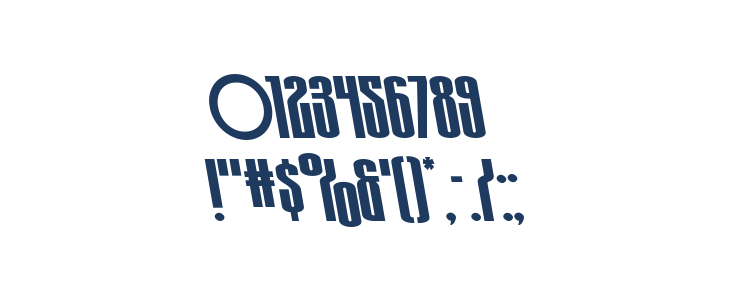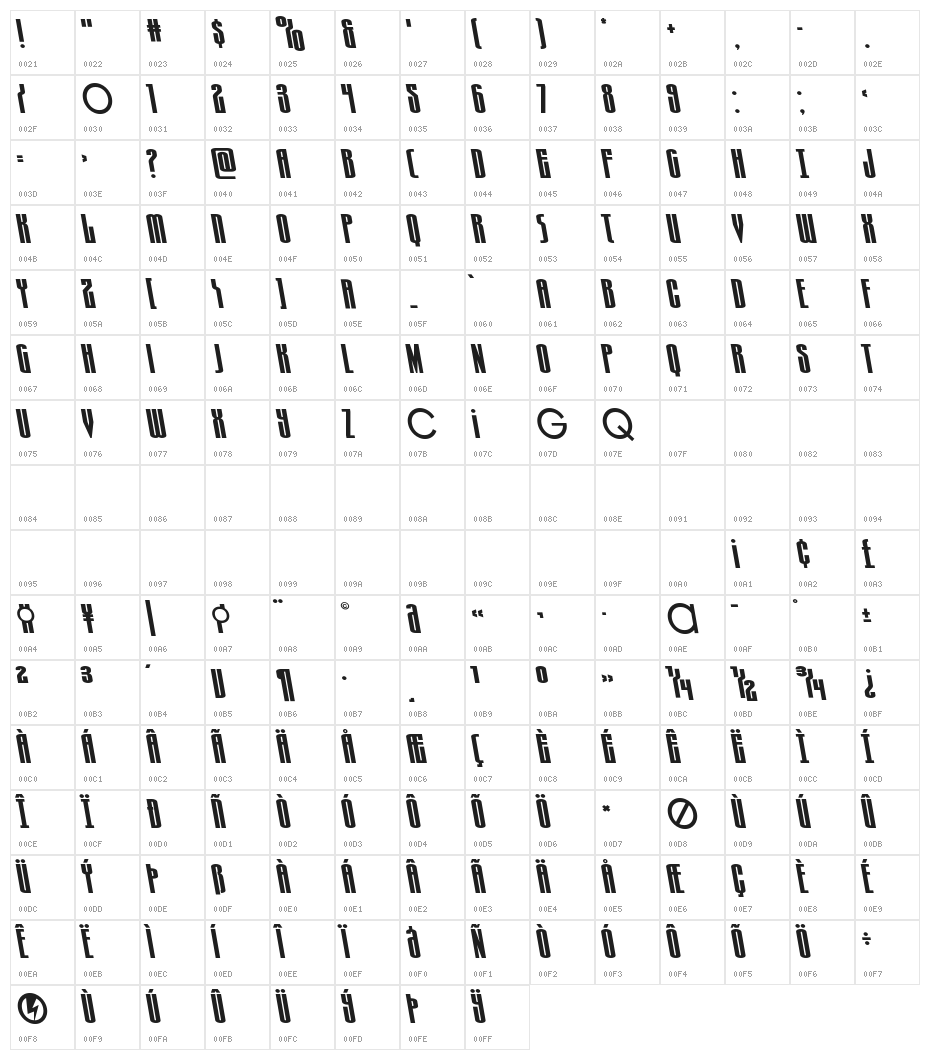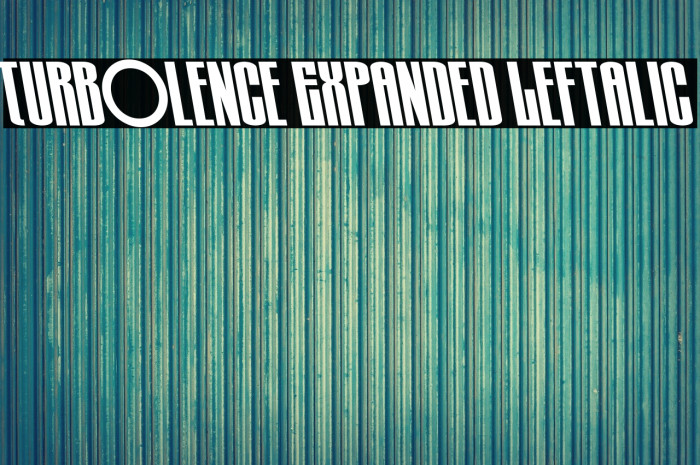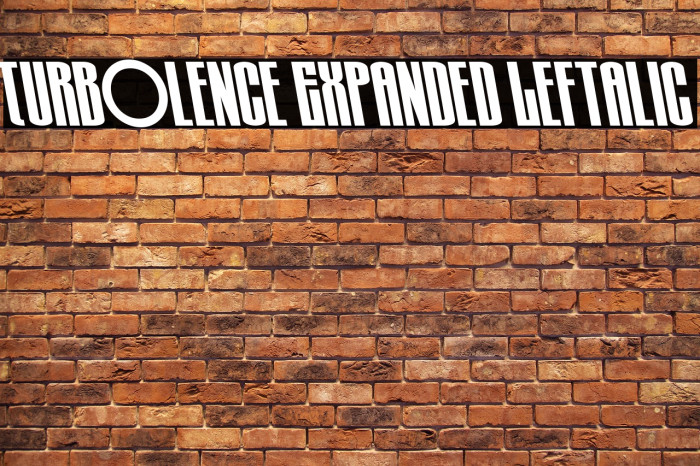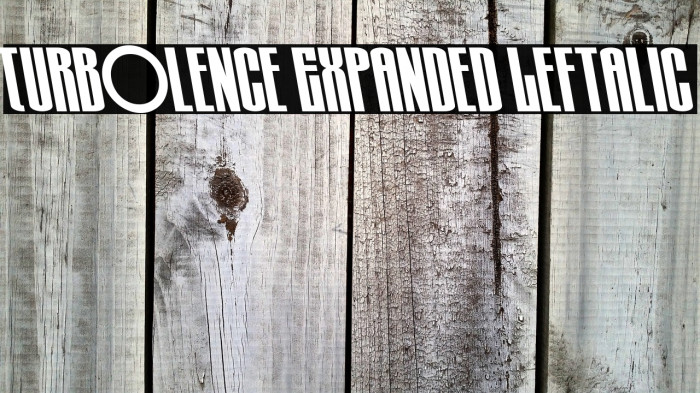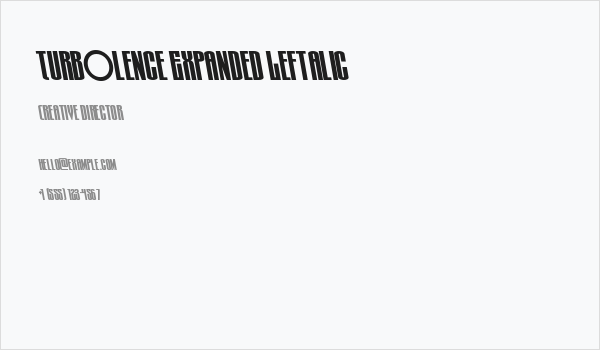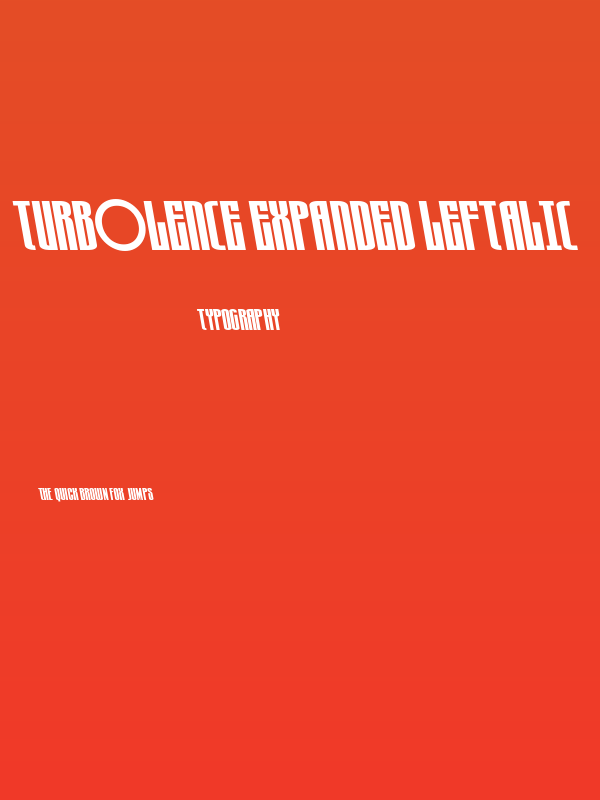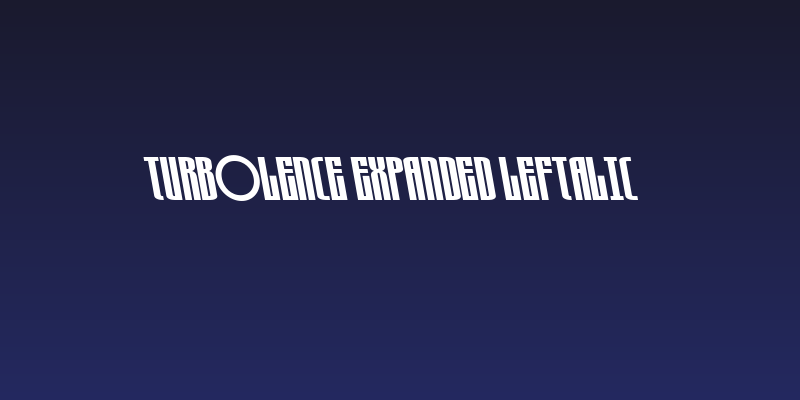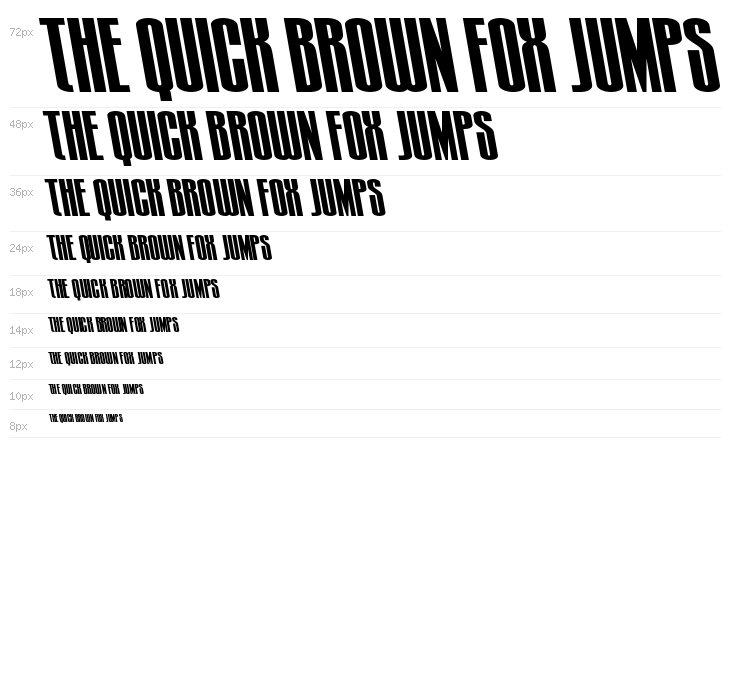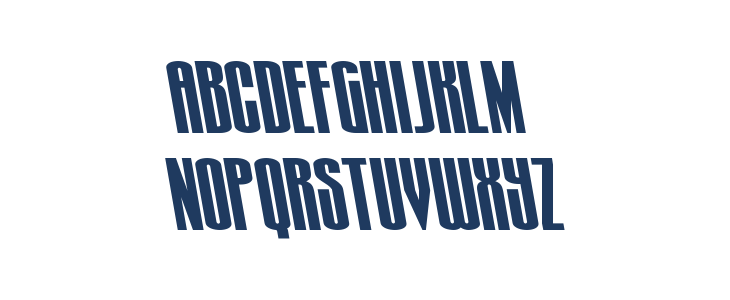
Turb0lence Expanded Leftalic Font
Turb0lence Expanded Leftalic Description
This font features a bold and dynamic design with a distinctly expanded width and a leftward slant, giving it a unique and energetic appearance. The characters are tall and narrow, with a strong vertical emphasis that enhances their striking presence. The bold strokes and condensed spacing create a sense of urgency and movement, making it ideal for attention-grabbing headlines or impactful logos. The font's high contrast between thick and thin strokes adds to its dramatic flair, while the angular edges and sharp corners contribute to its modern and edgy style.
| Proposed Projects | Ideal for use in sports branding, music album covers, dynamic posters, and modern advertising campaigns. |